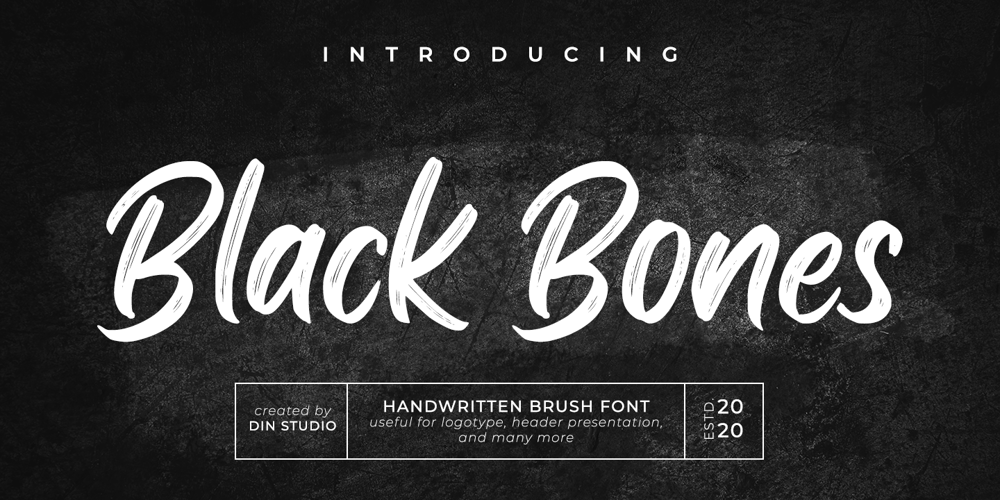
Black Bones Font Family was designed by Donis Miftahudin and published by Din Studio. Black Bones contains 1 styles and family package options. Black Bones is a classy script font. Combined with brush textured handwritten will make your design project more powerful. Made for any professional project branding. It is the best for logos, branding and of course quotes. Every letter has a unique and beautiful touch.Features: PUA Encoded Multilingual Support Numerals and Punctuation Thank you for downloading premium fonts from Din Studio